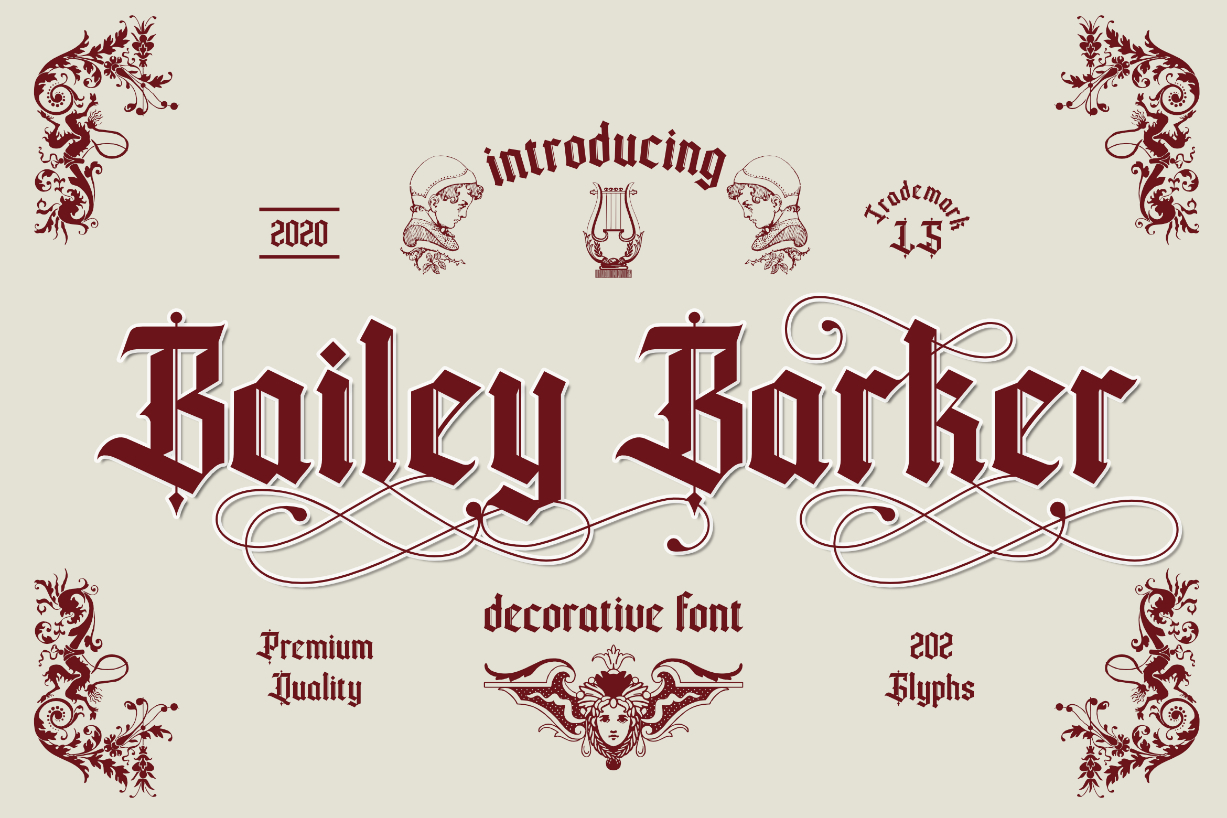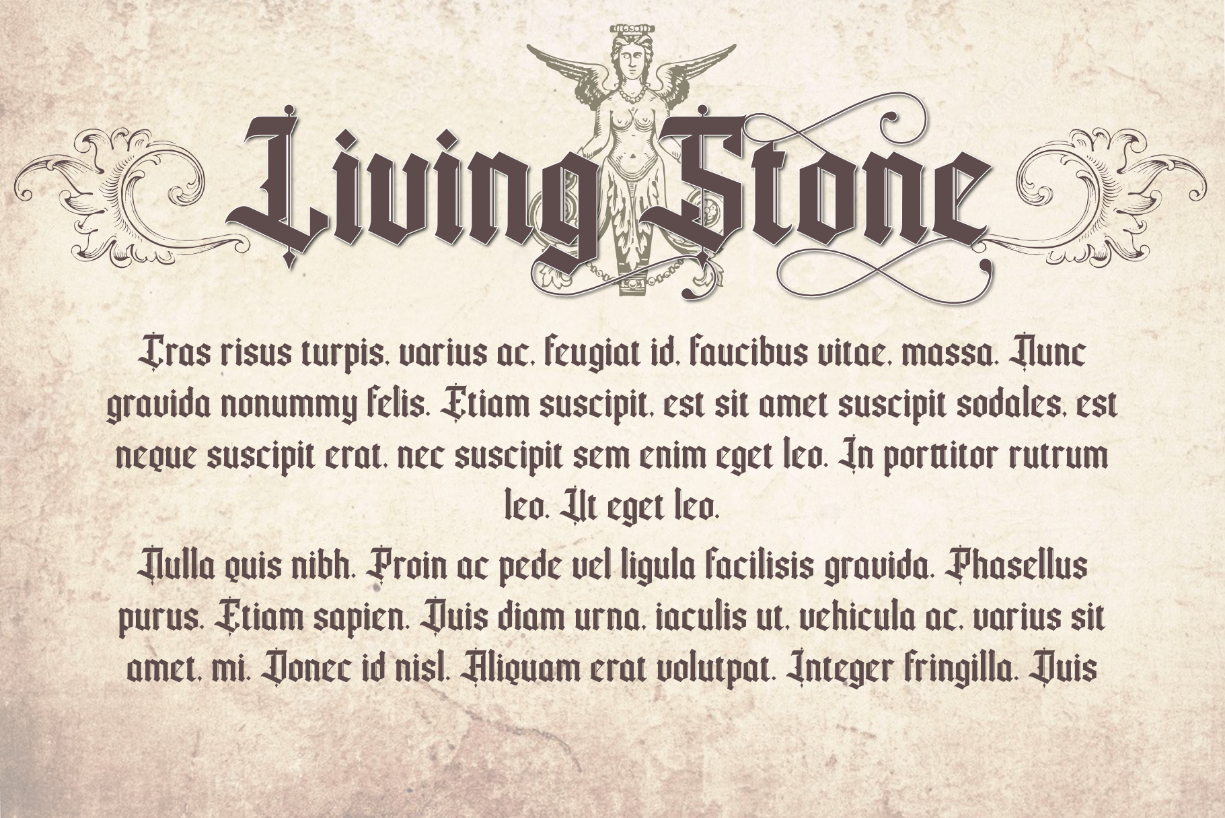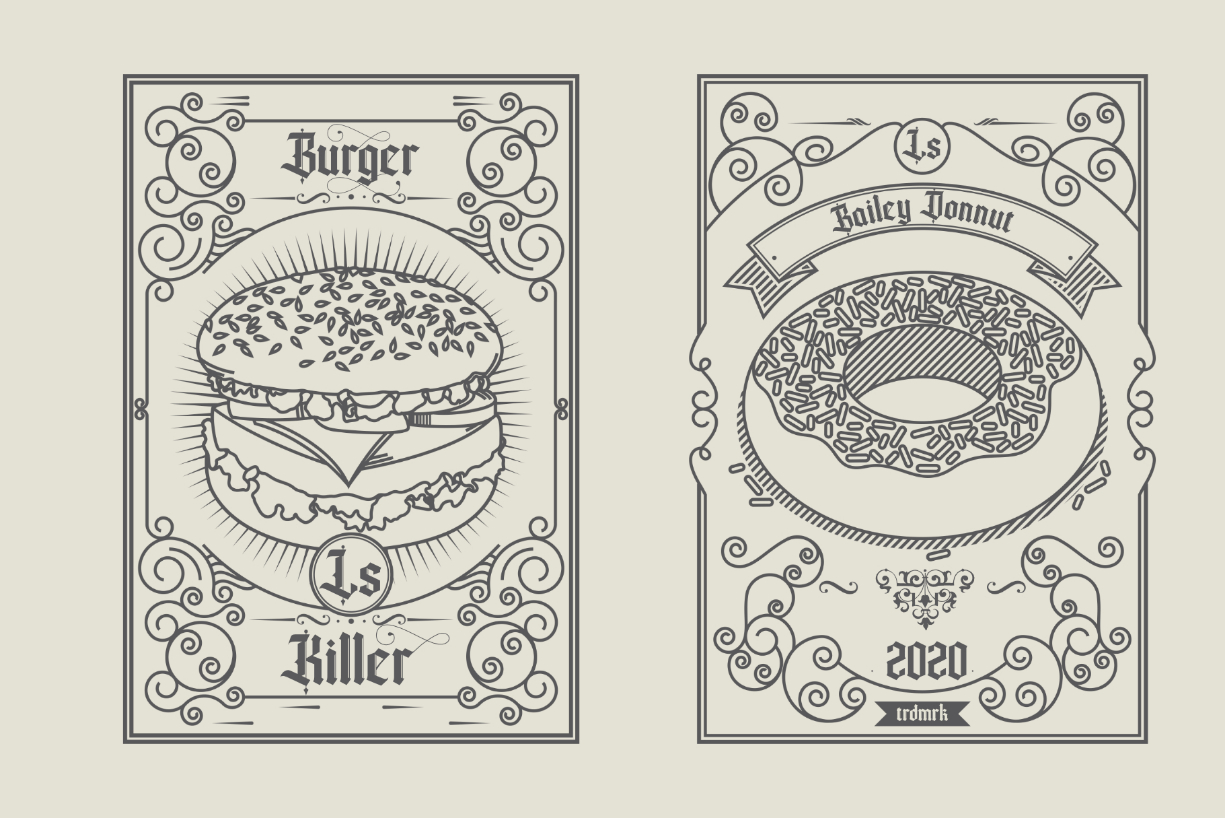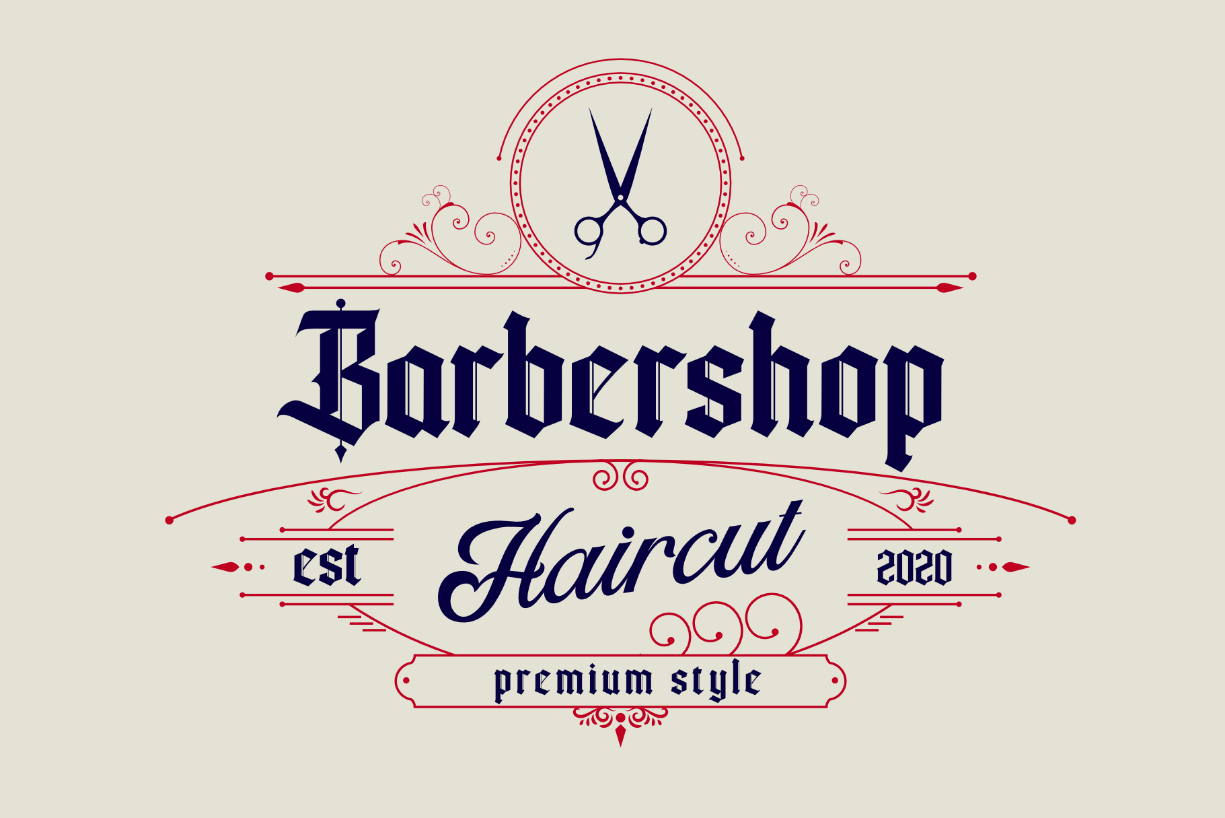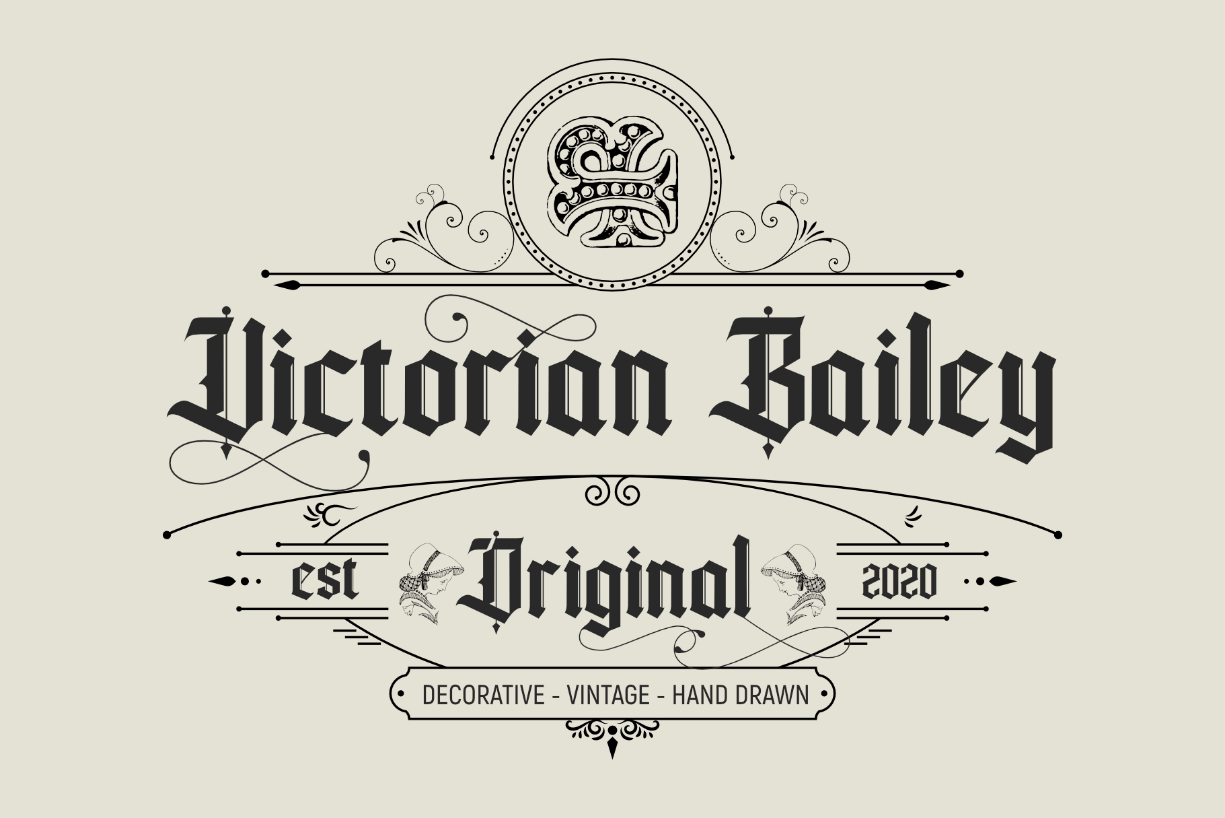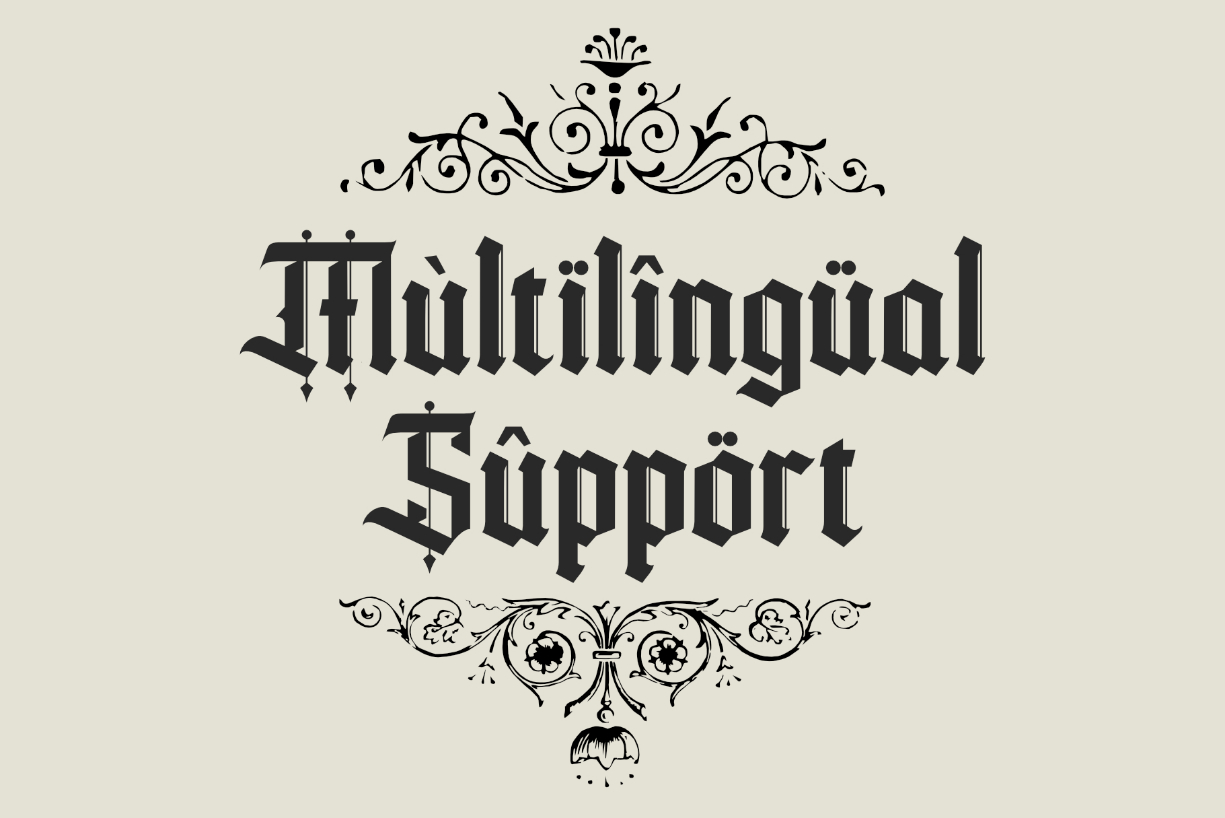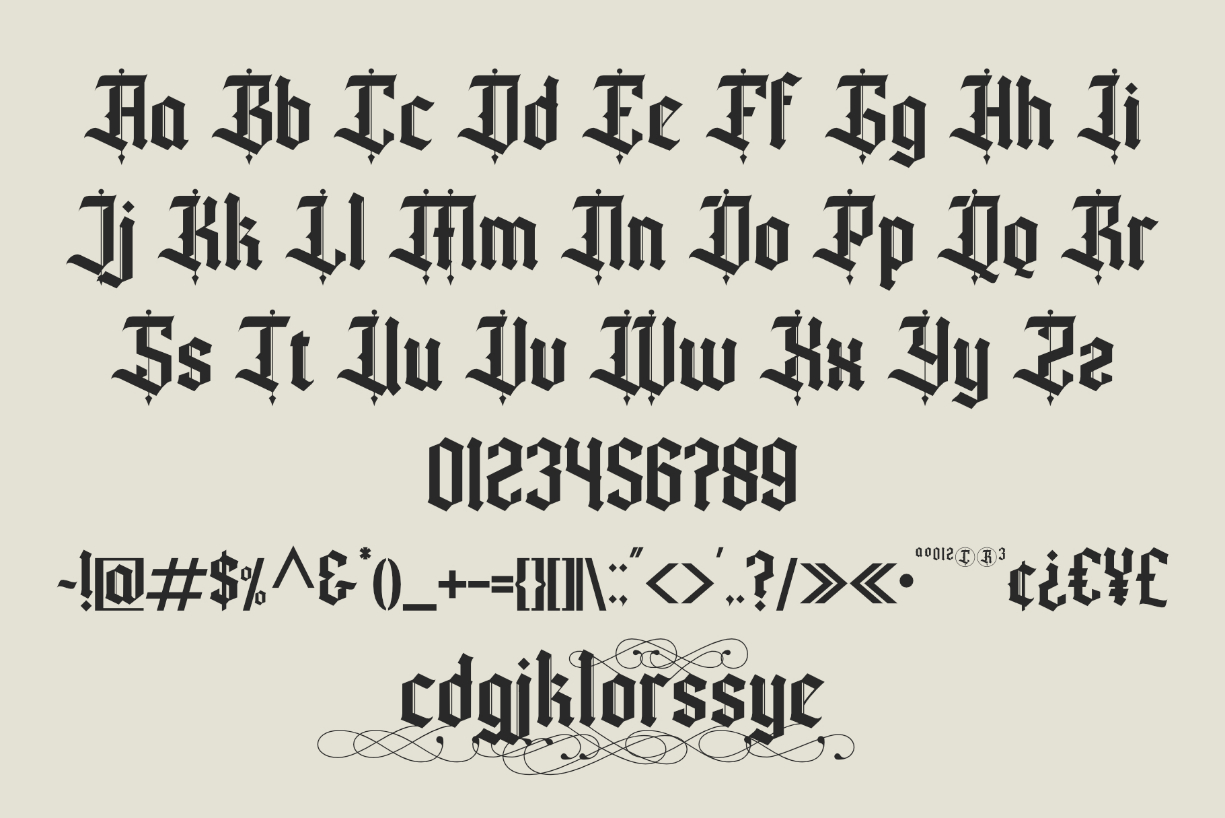
Bailey Barker Font
About Bailey Barker Font
Bailey Barker is a bold and authentic blackletter font. Masterfully designed to become a true favorite, this font has the potential to bring each of your creative ideas to the highest level!